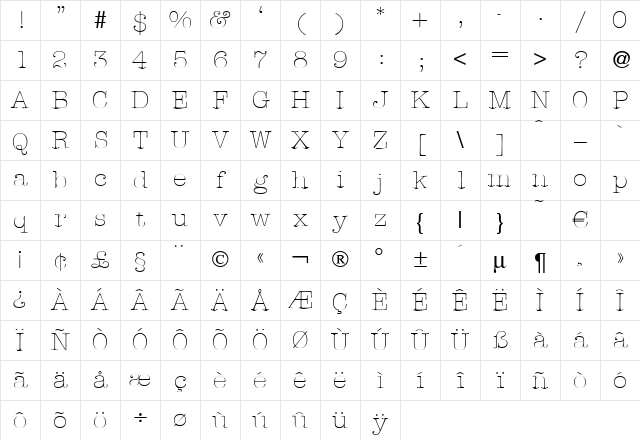
Complete AmbienteLightDB Normal glyph index. Displaying only characters natively supported by AmbienteLightDB Normal font.
AmbienteLightDB is a composed and adaptable typeface that performs quietly and consistently across a wide range of design contexts. Its slender proportions lend an understated elegance to any composition.